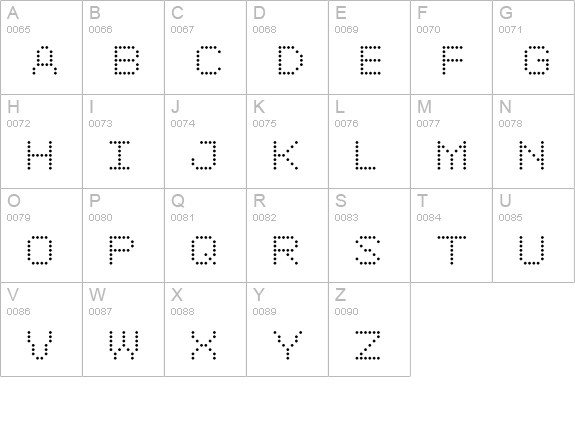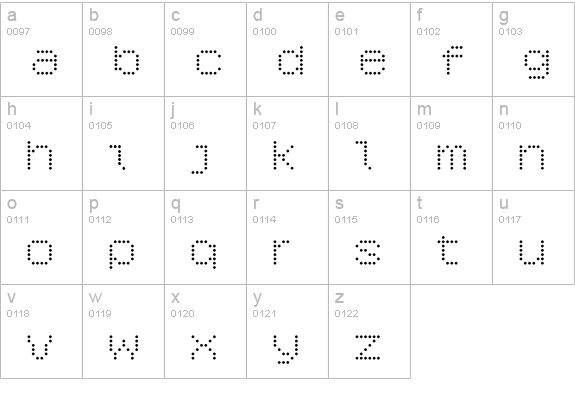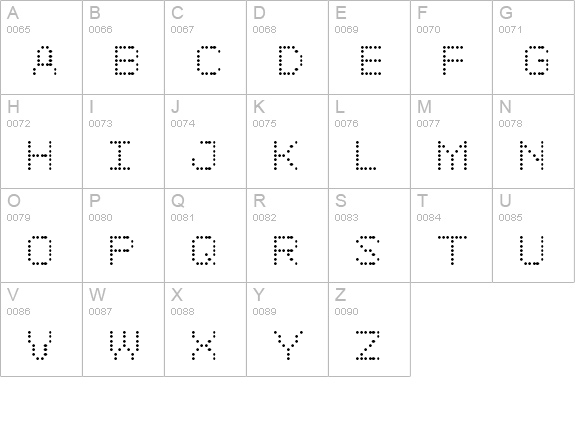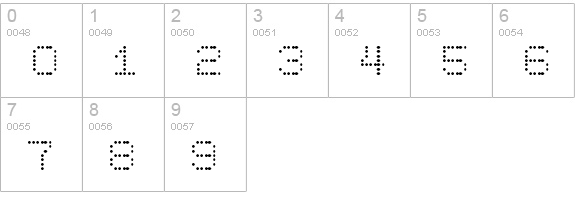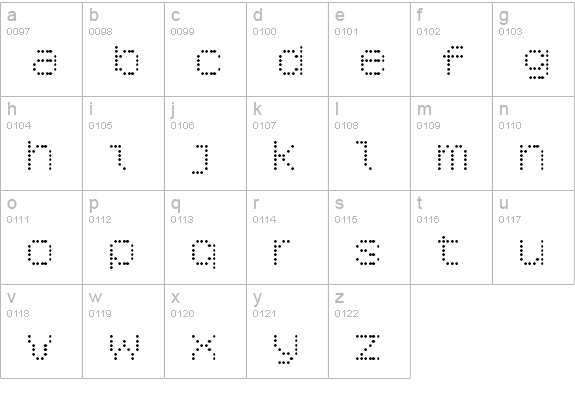
Introducing 6x7oct font, a modern and stylish typeface perfect for a wide range of design projects. This unique font features clean lines and a sleek appearance that will make your text stand out. With its bold and eye-catching design, 6x7oct font is sure to make a statement in any project. Best of all, this font is completely free to download at FontsMarket.com! Whether you're working on a personal project or a professional design, 6x7oct font is the perfect choice. Don't miss out on this fantastic opportunity to enhance your designs with this versatile and dynamic font. Download 6x7oct font today and take your designs to the next level!